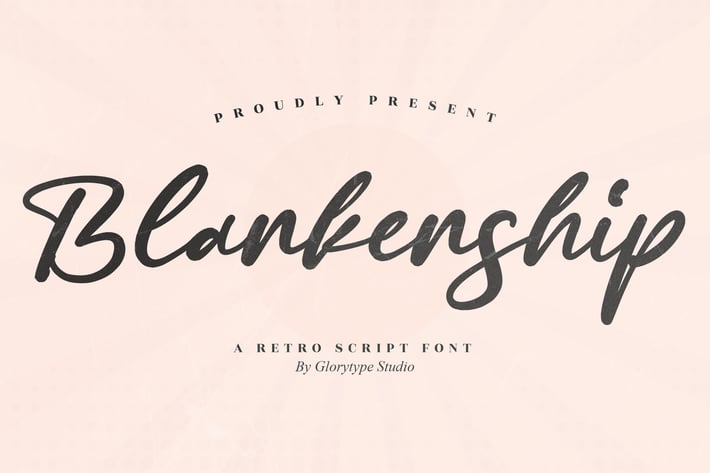
Blankenship Retro Script Font
Blankenship Retro Script is a nostalgic brush-script with bold strokes and smooth curves, perfect for vintage-inspired headlines and warm, personable branding. Its lively rhythm and handcrafted texture add character to any layout—whether you’re designing posters, apparel, or social content that needs a classic retro vibe with modern readability.
+ Uppercase & lowercase letters
+ Numerals & punctuation
+ Alternates & ligatures
+ Optimized kerning for clean spacing
+ Basic multilingual support
+ Branding & Logo design
+ Packaging & Posters
+ Social media graphics
+ Quotes
+ Invitations
+ Wedding stationery
+ Greeting cards
Bring bold retro energy to your designs with Blankenship’s vibrant brush-script flair.